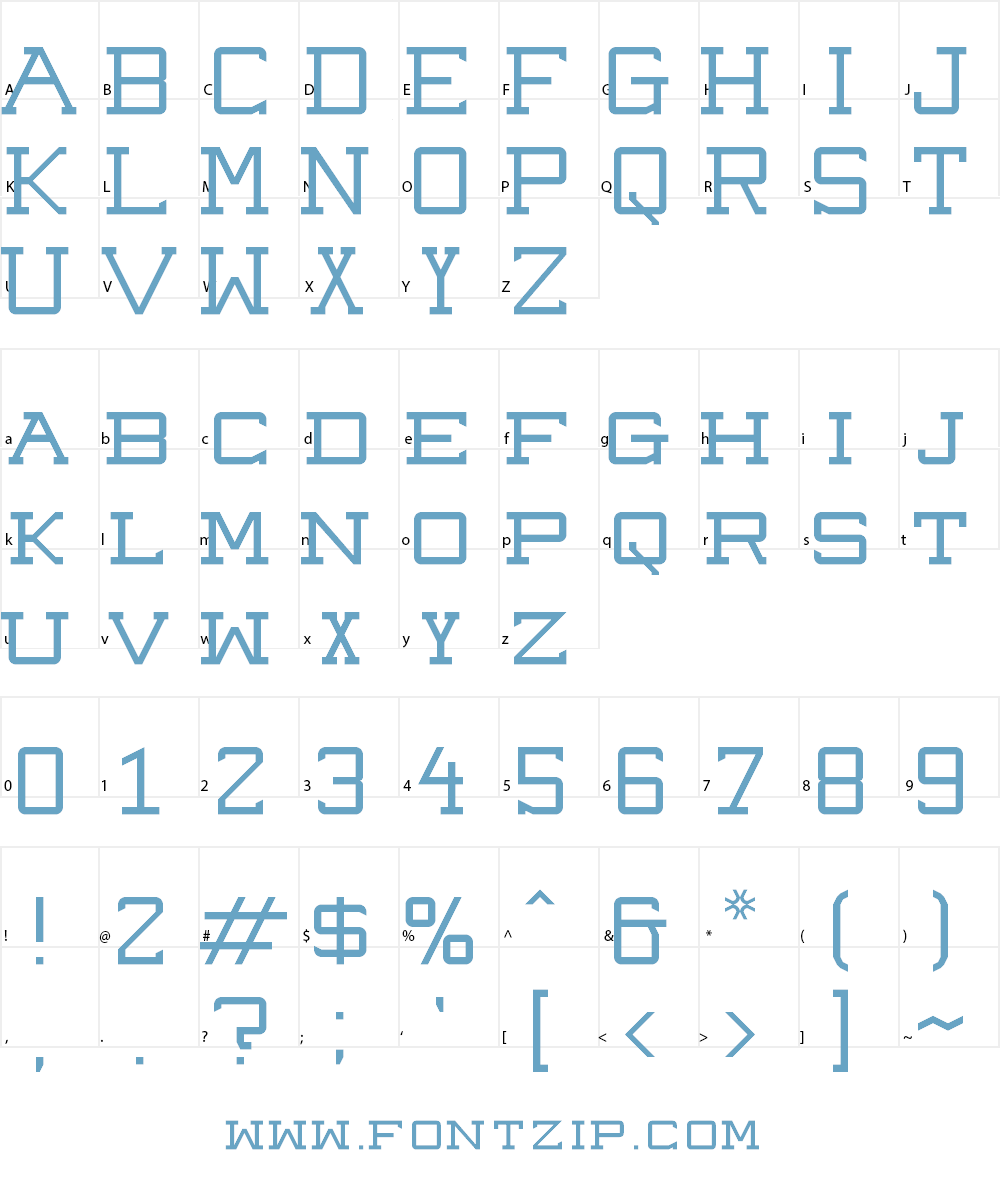
A smallcaps typeface inspired by Bank Gothic. Comes in Serif and Sans-Serif.
Changes in Version 1.2:
-Fixed spacing issues with X and Y
-Fixed Raven Sans's uppercase R
-Added Cyrillic and Greek characters to Raven Sans